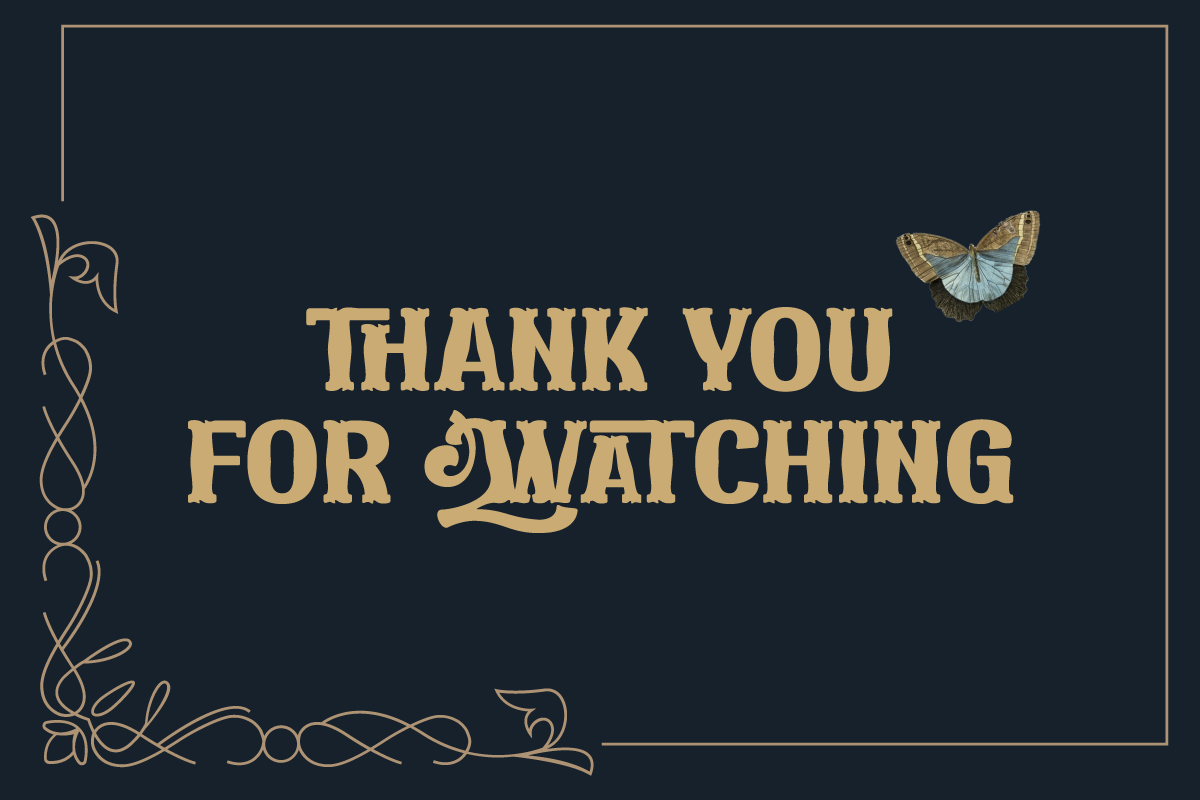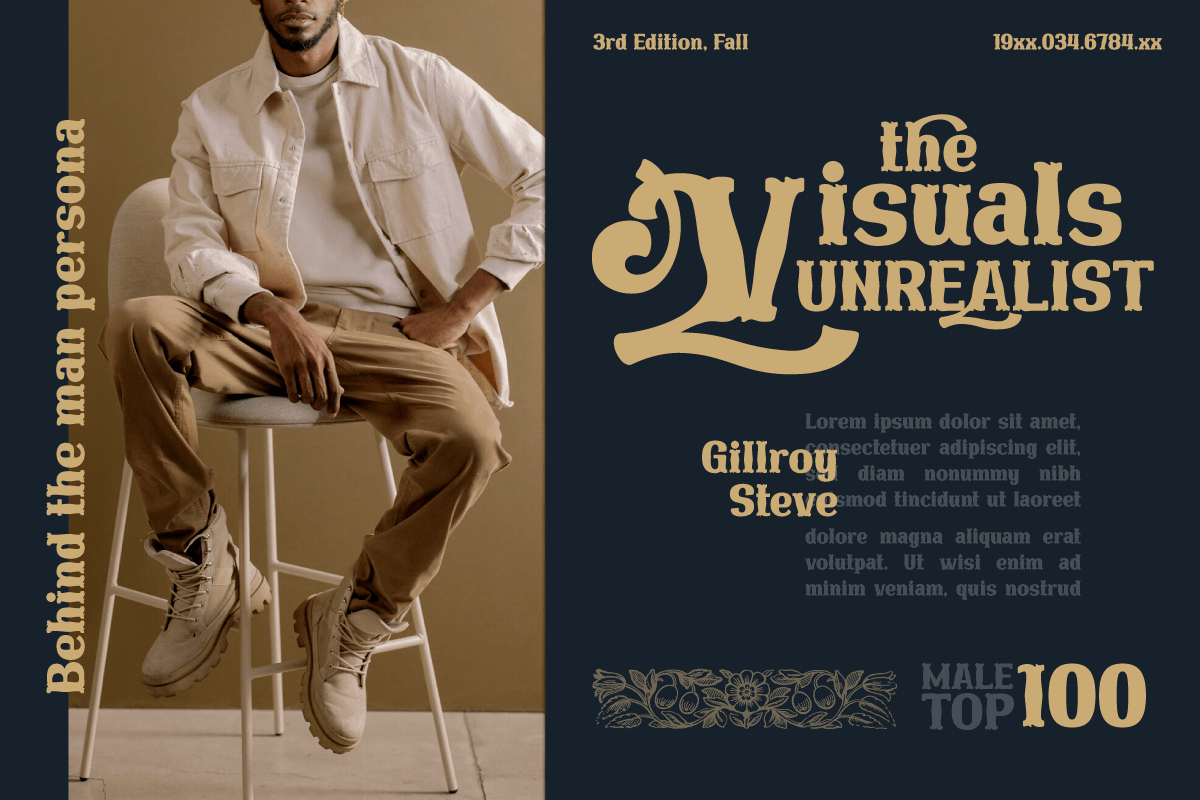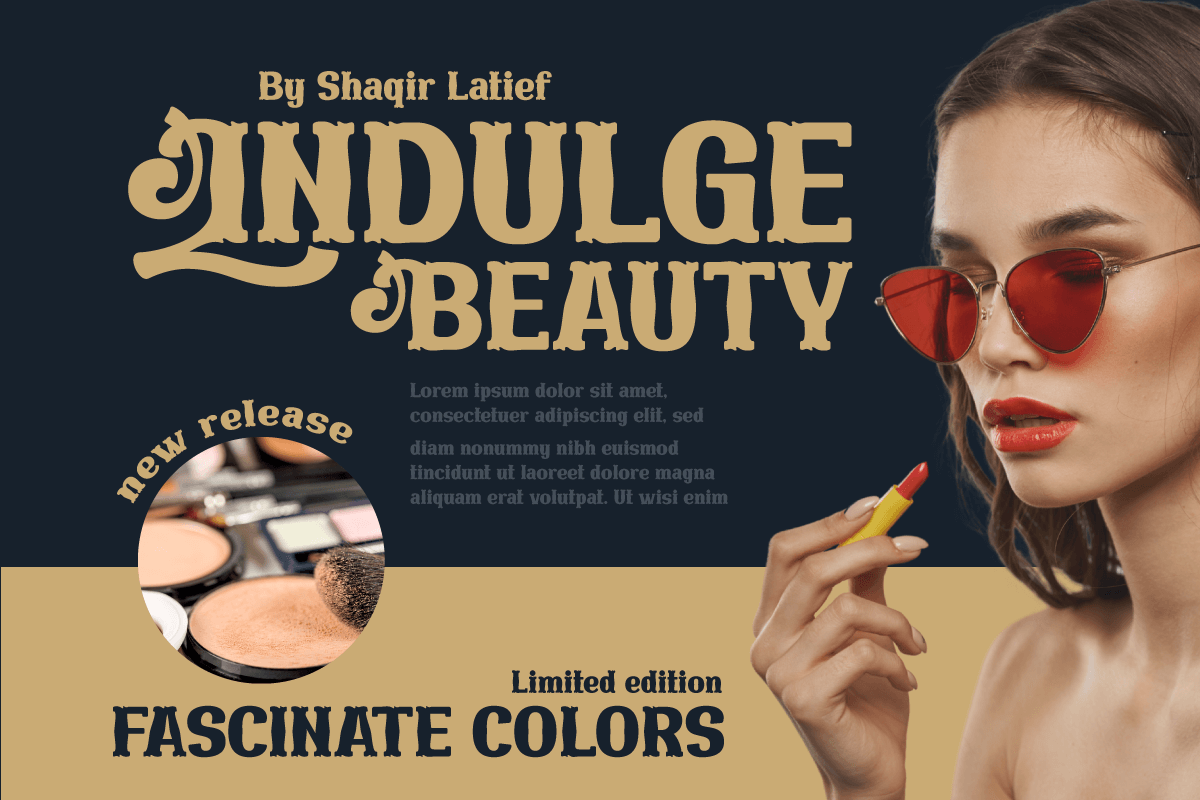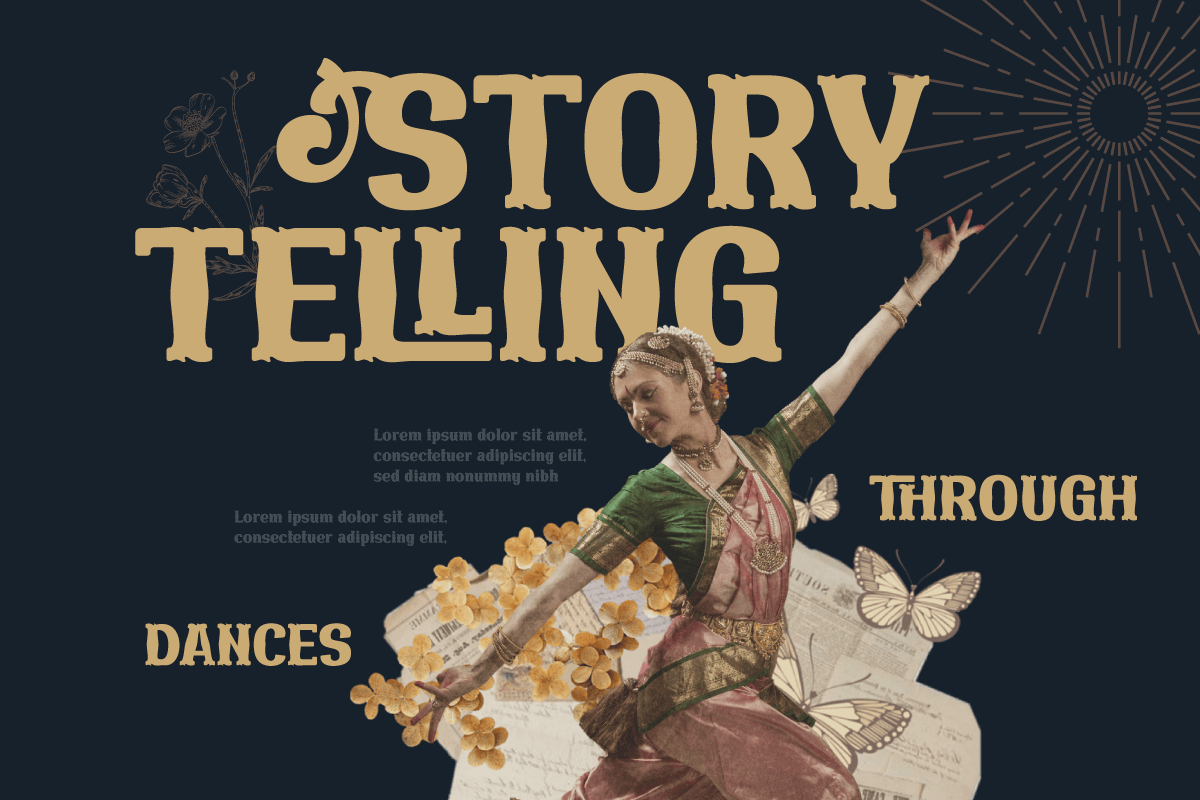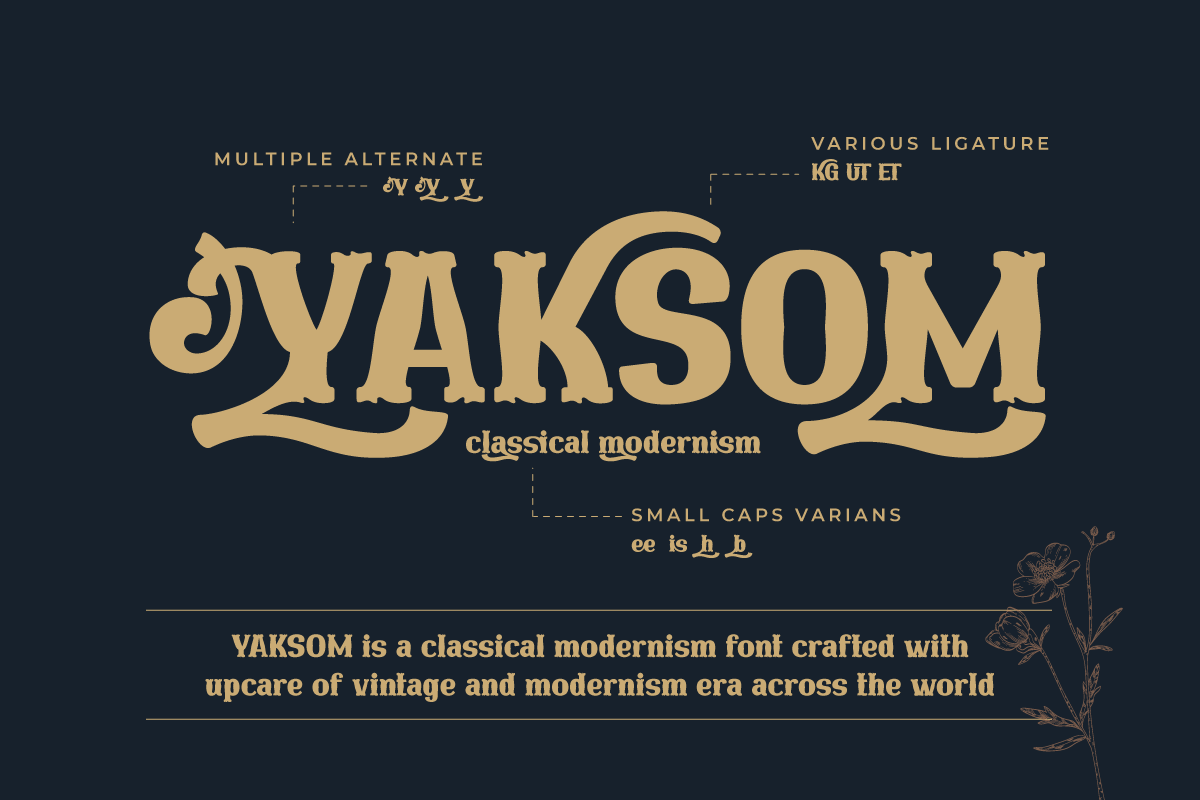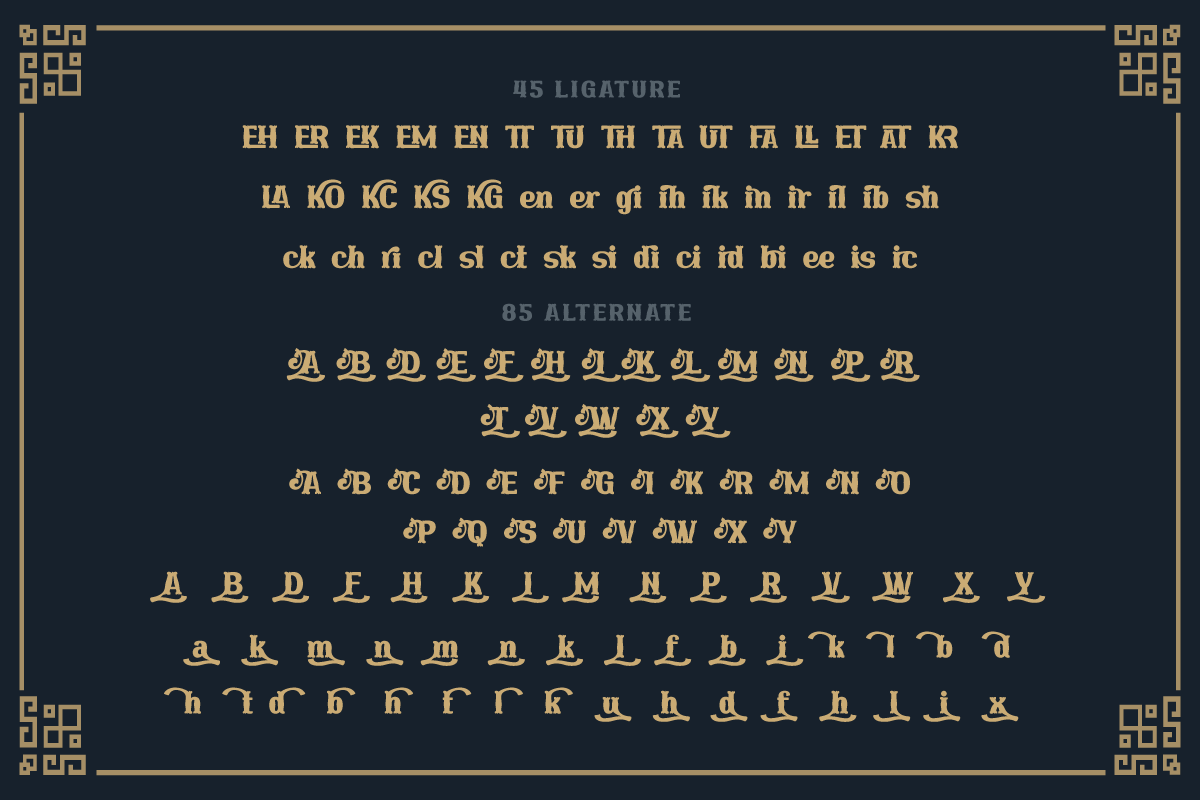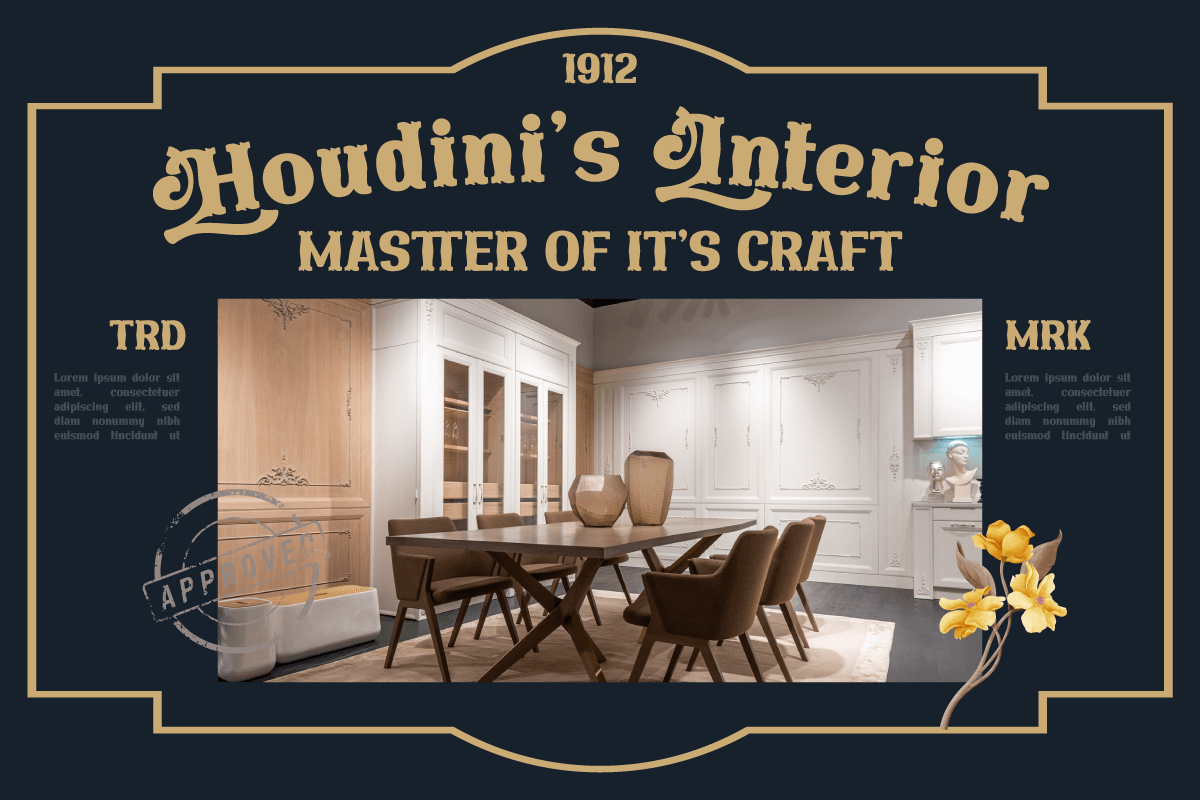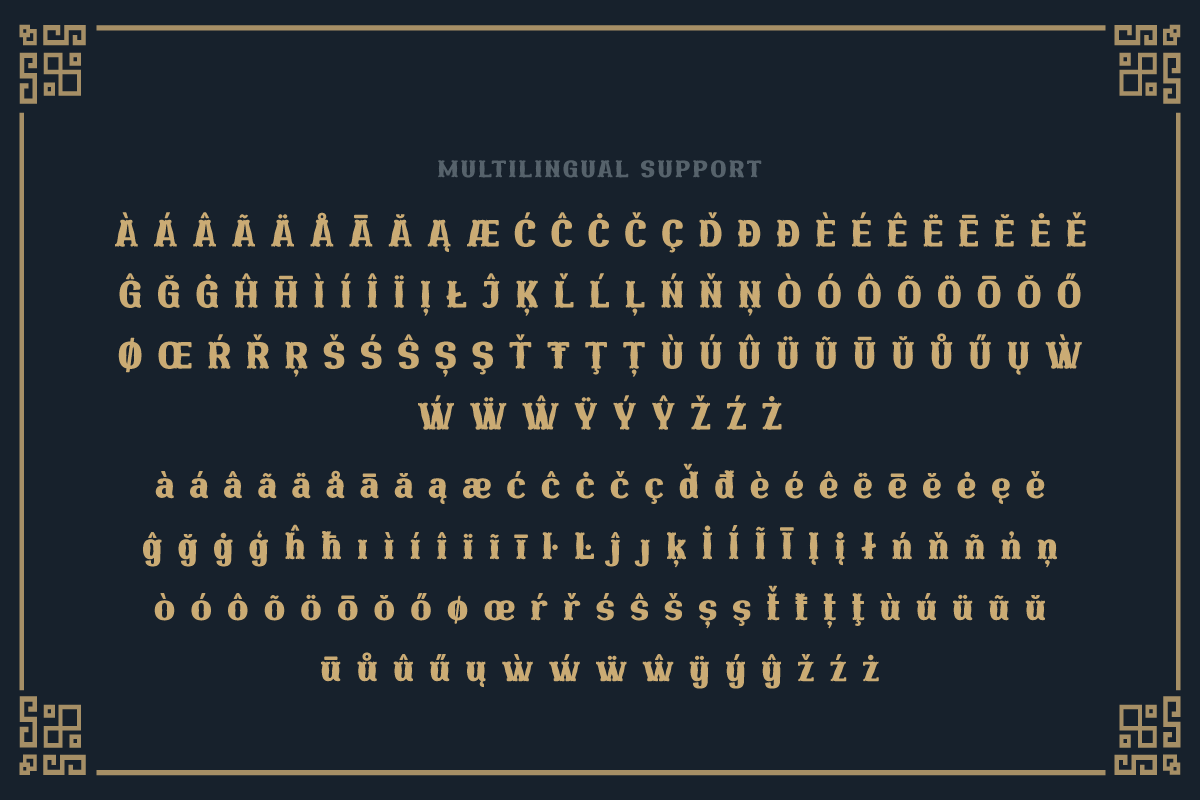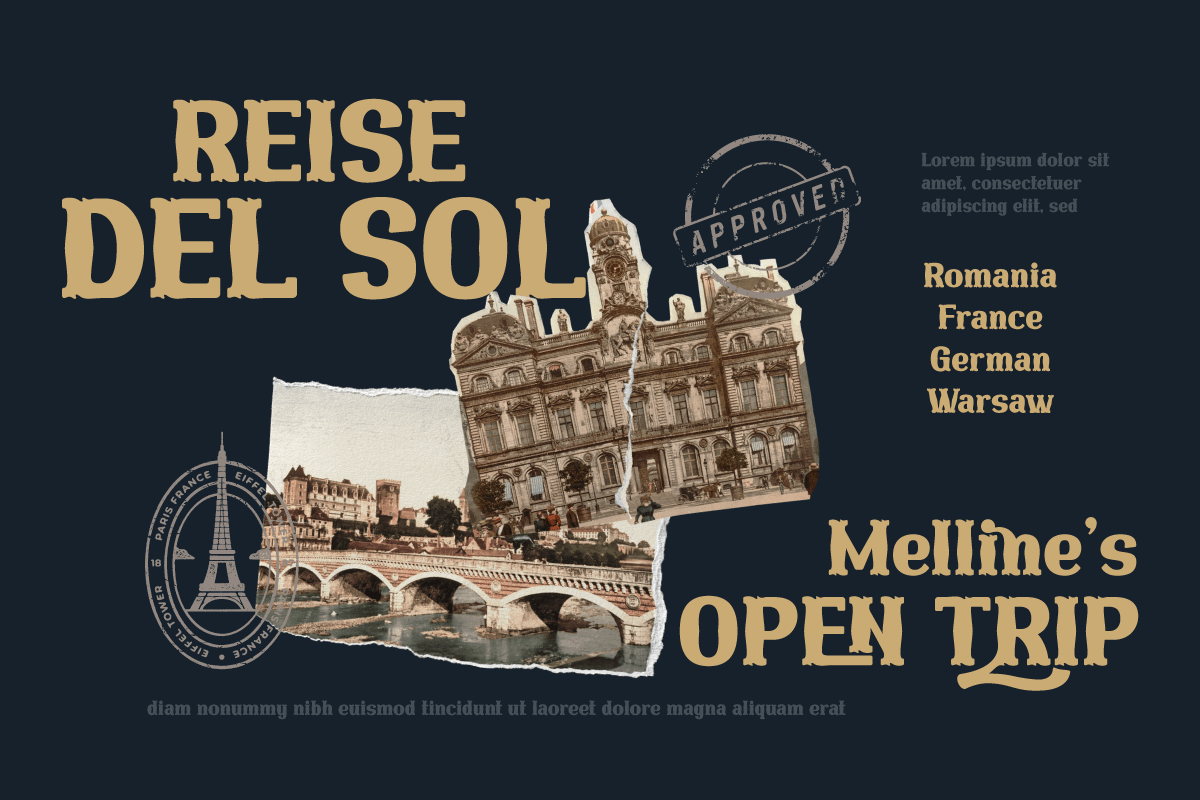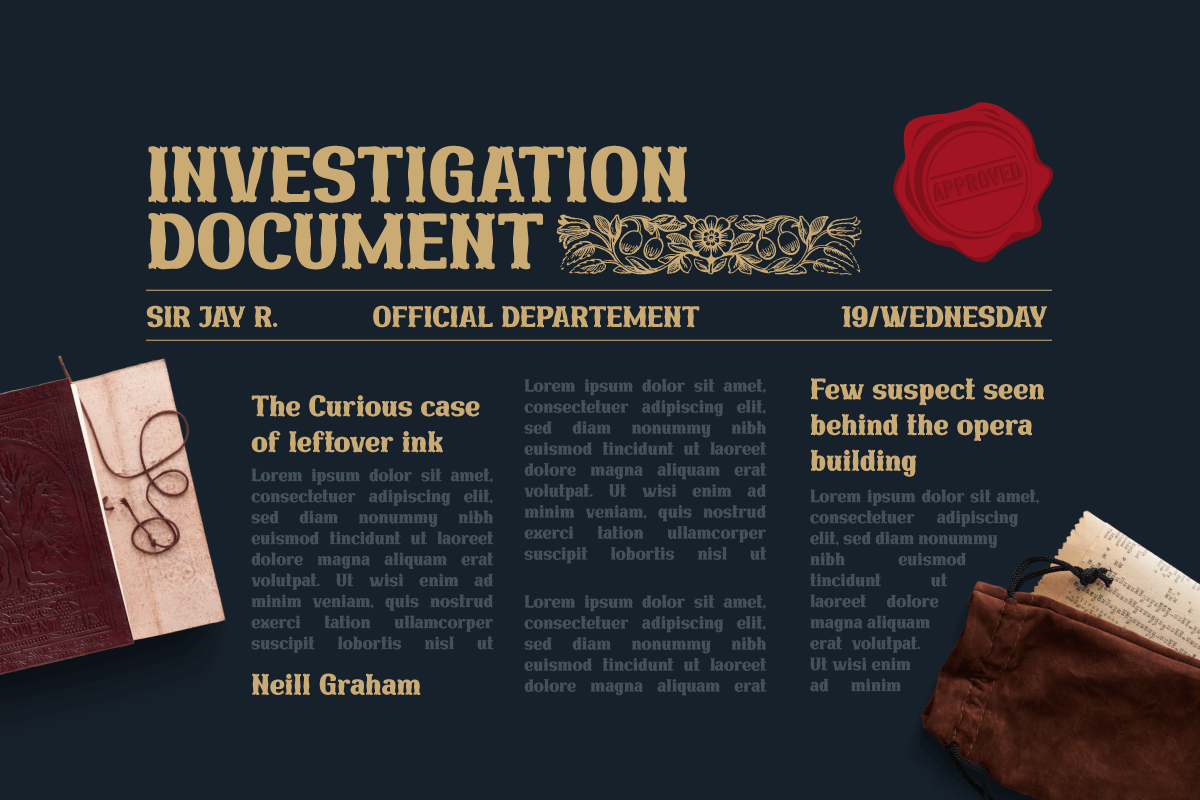
YAKSOM | Serif Classic Modernism
Yaksom is a classic serif font that exudes timeless beauty and a captivating modern style. The perfect solution for projects that require an elegant classic modernism theme. With a proportional and elegant serif design, Yaksom conveys timeless elegance in every letter. Every detail is exquisitely detailed, creating a look that embodies the refinement and elegance of an irreplaceable classic era.
Yaksom is also equipped with stunning features. Beautiful ligatures add a creative touch and enrich the look of a font, while alternative variations provide unique styling options. Extensive multilingual support also ensures that Yaksom can be used fluently in multiple languages.
Are you looking for a font that combines classic elegance with a dazzling modern twist? Yaksom is a perfect choice. With a stunning classic serif style, creative features such as alternate ligatures and variations, and the ability to support multiple languages, this font will quickly grab the attention of your prospects and create a stunning aesthetic impression in the blink of an eye.
- Alternate, Ligature